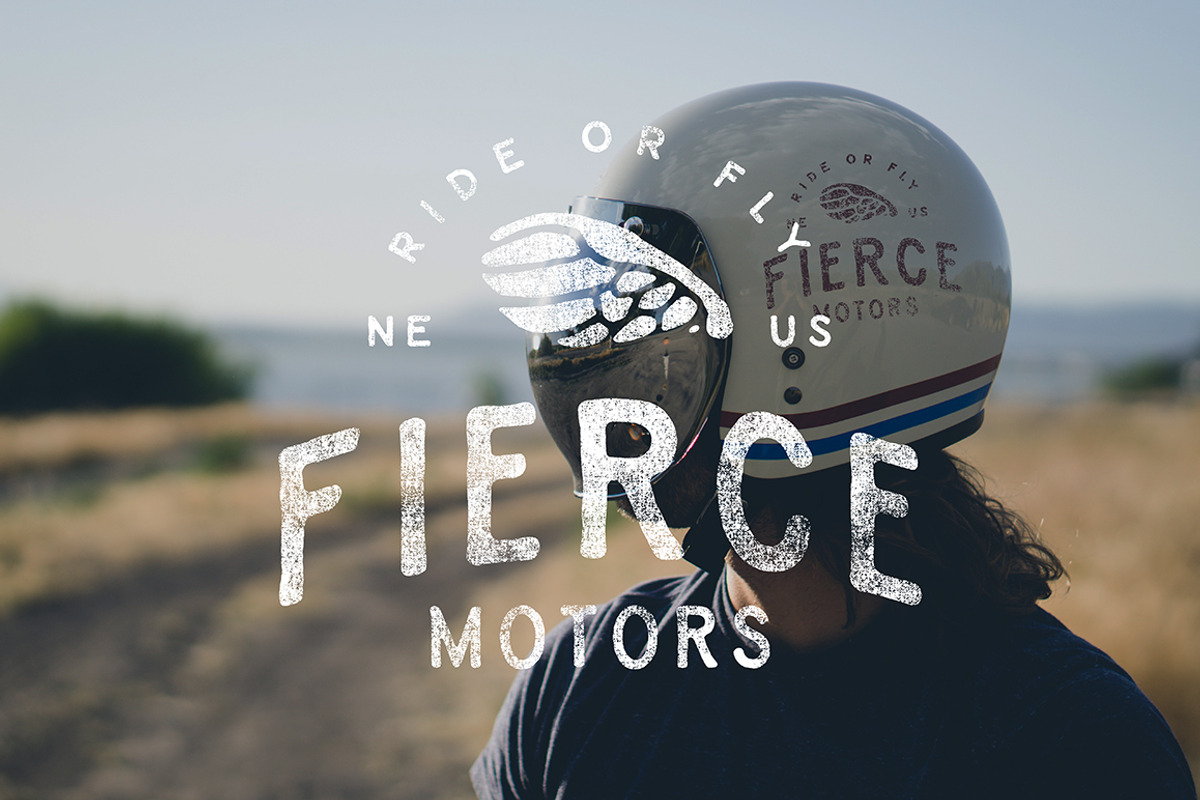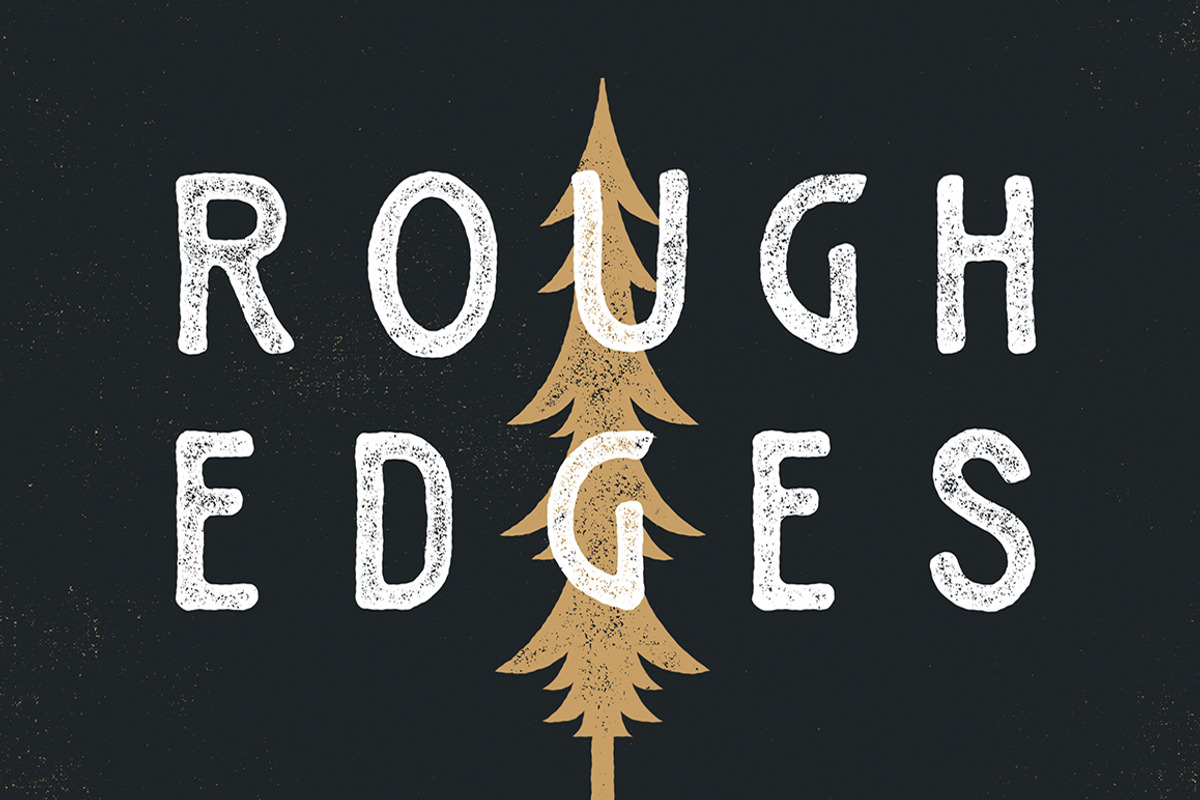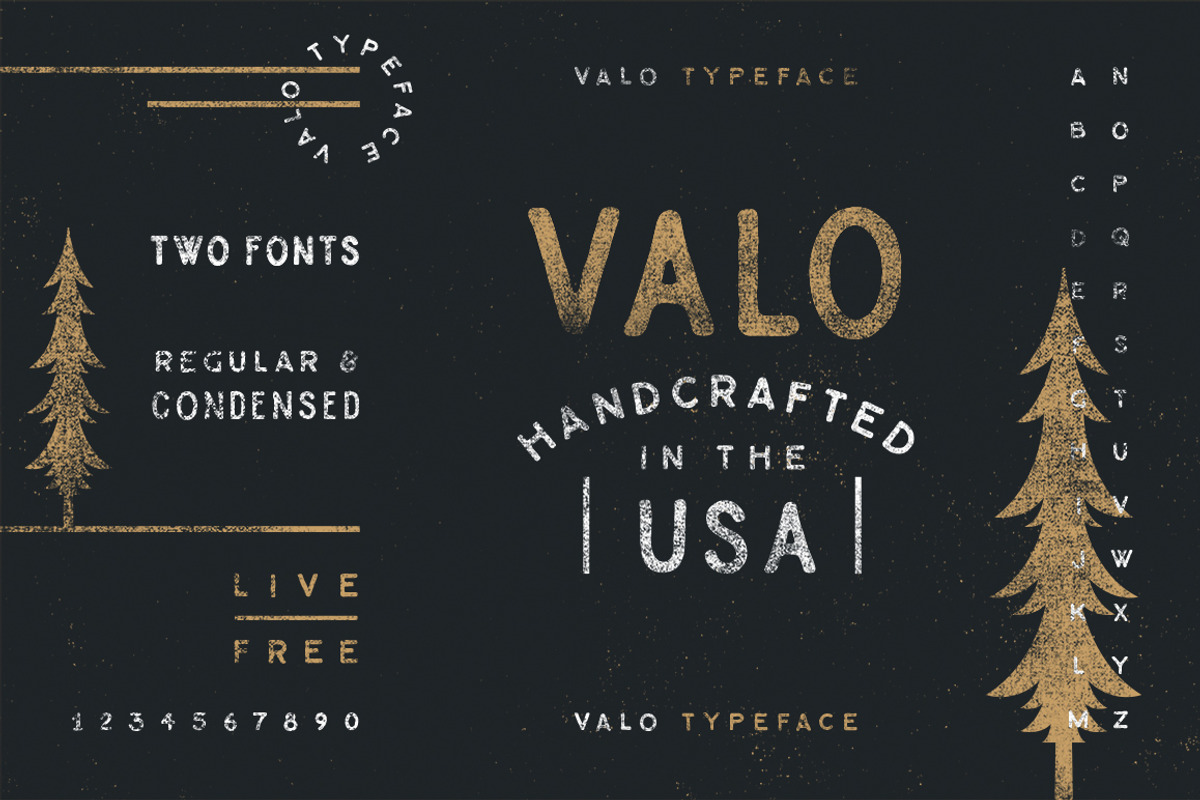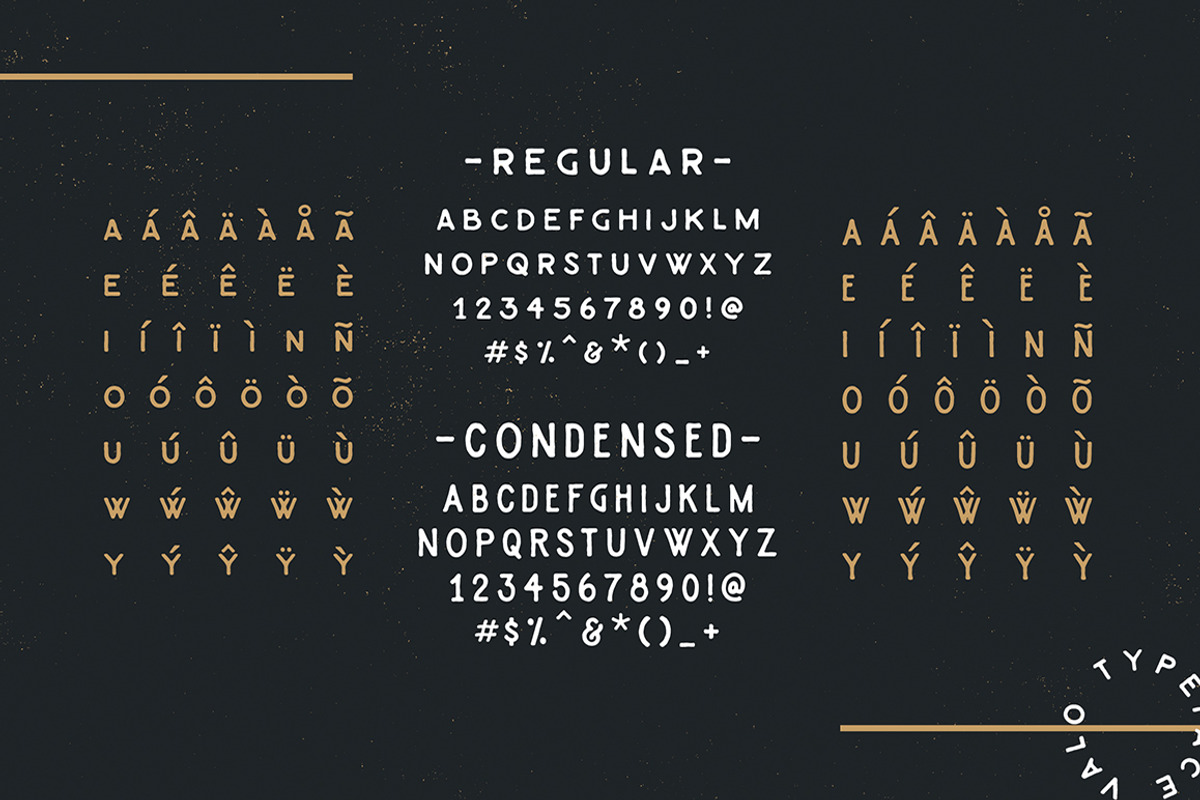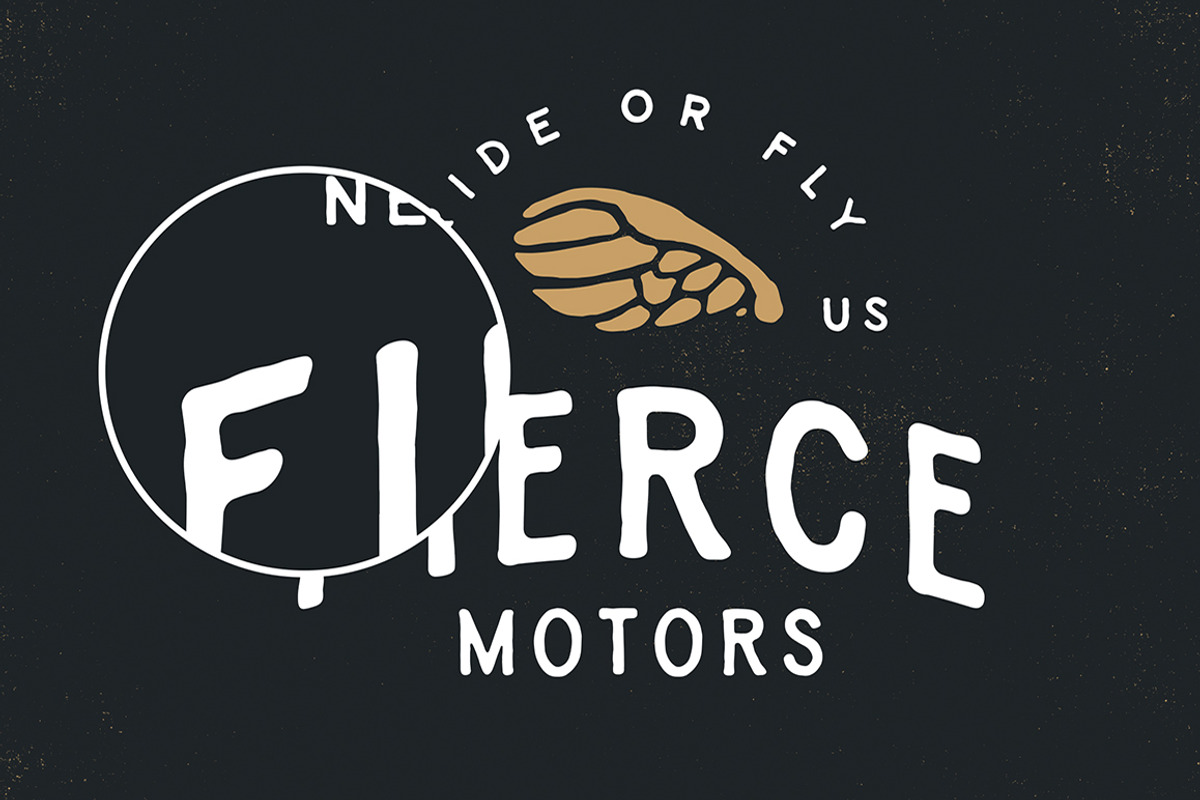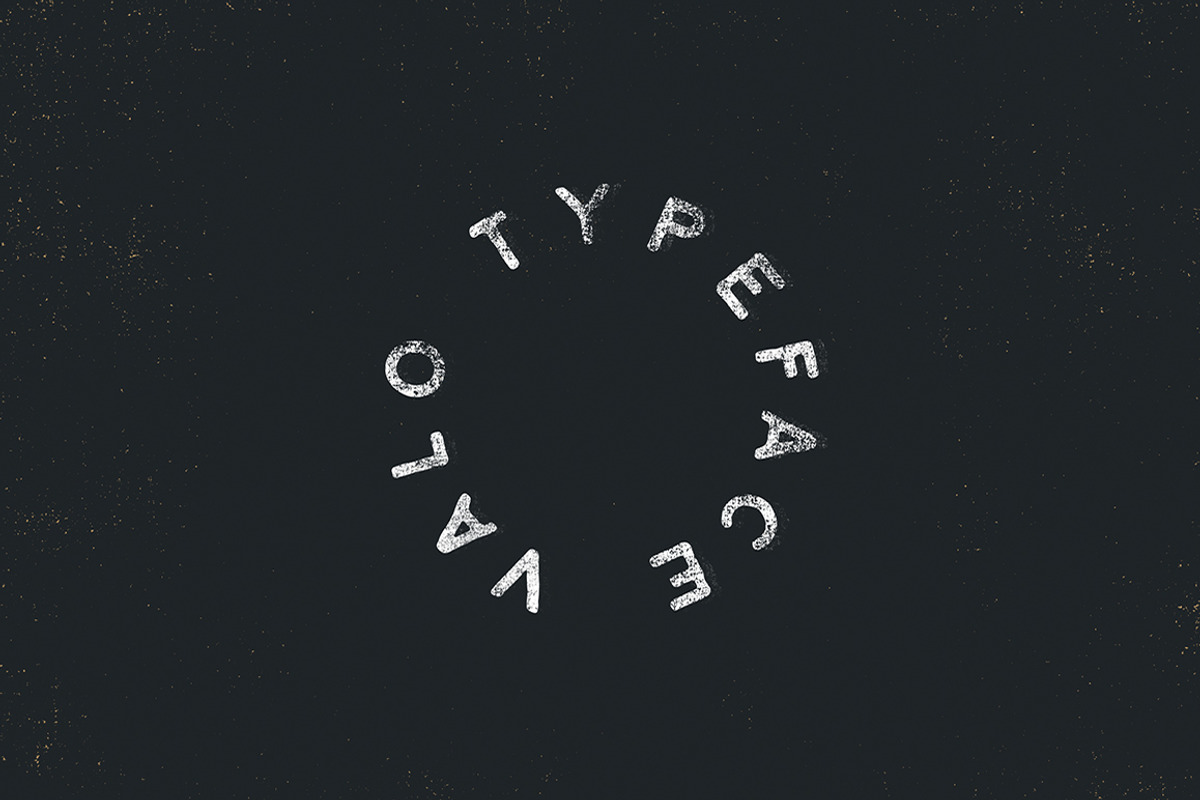
Valo | A Handmade Typeface Duo SALE by Nicolas Fredrickson is a font selected for branding, posters, packaging, typography.
- Valo comes with an uppercase alphabet, numbers, symbols, and even includes European characters!
- Valo Regular
- Valo Condensed
Valo | A Handmade Typeface Duo SALE by Nicolas Fredrickson fits naturally into Branding, posters, packaging, typography.